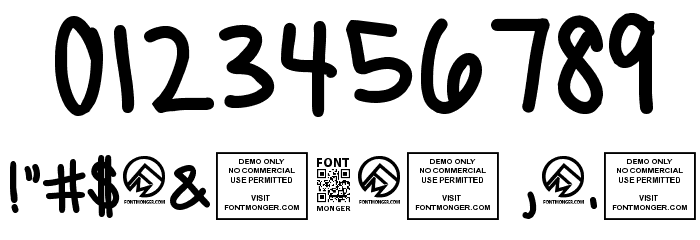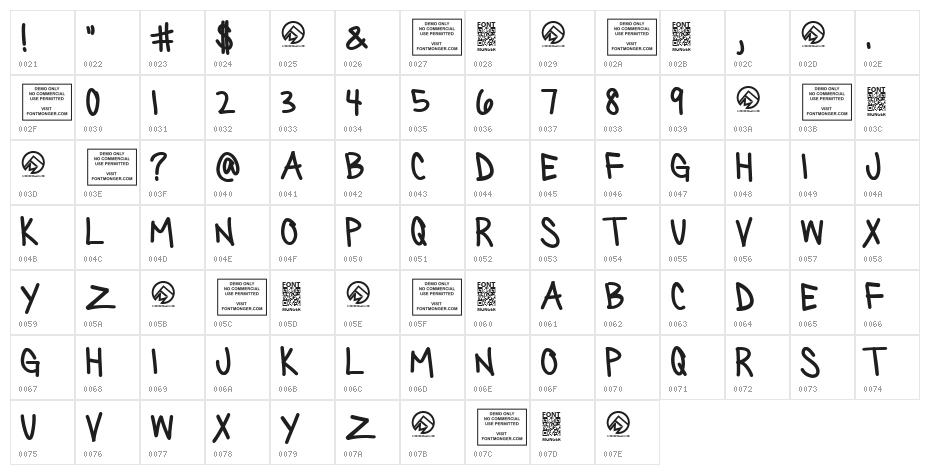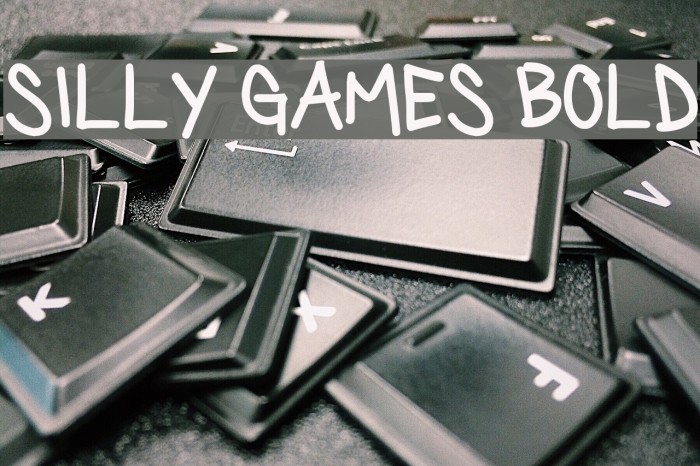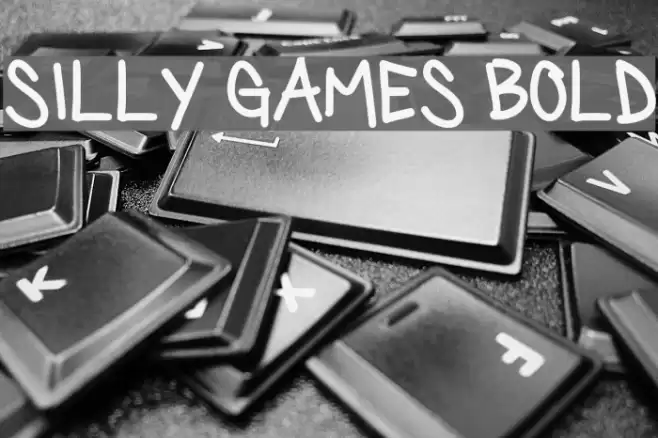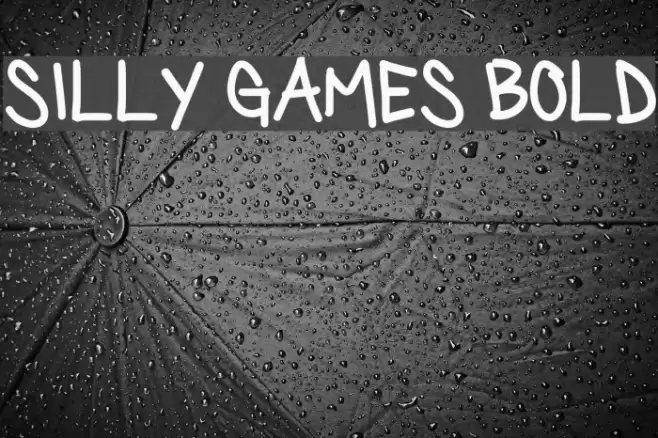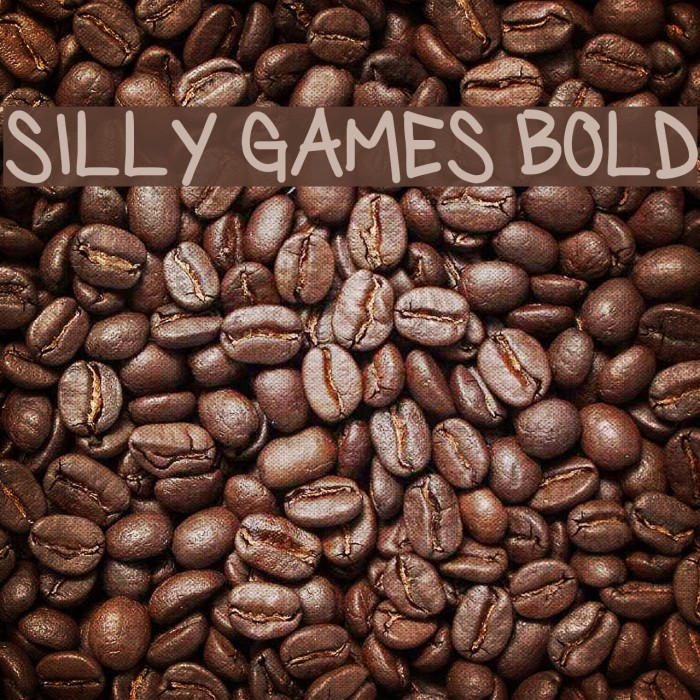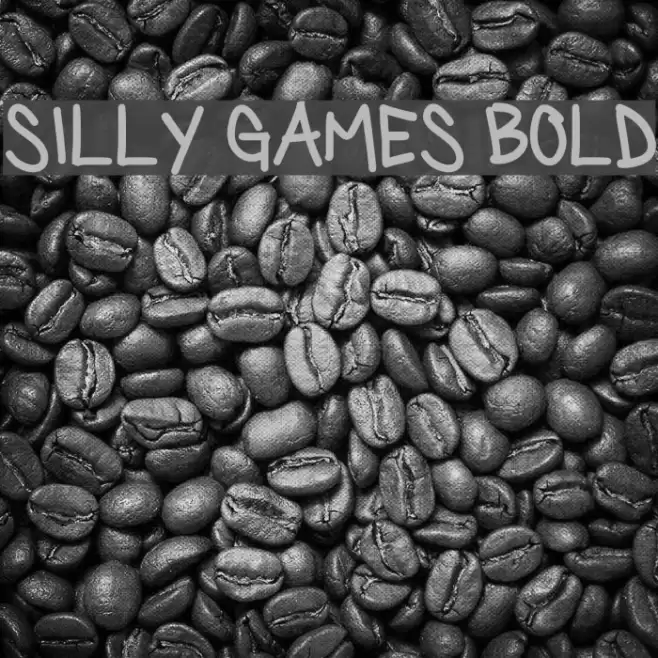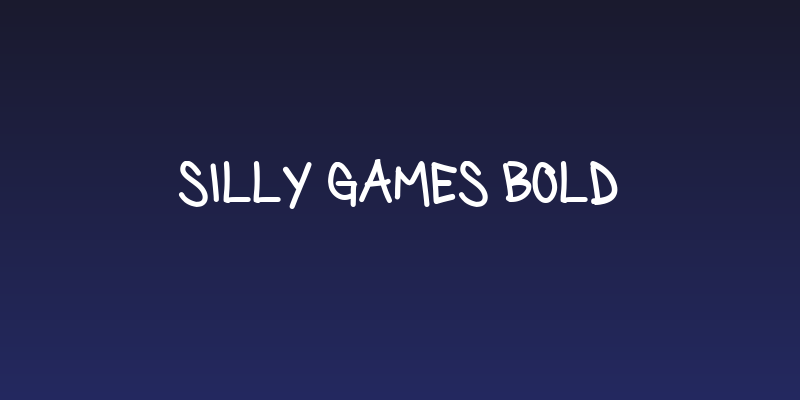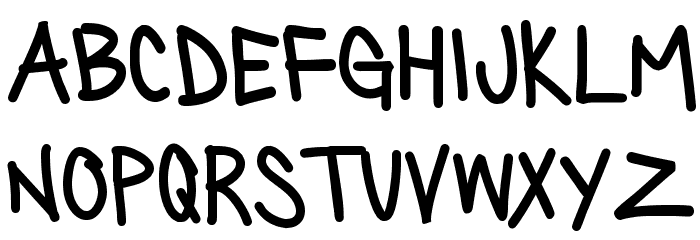
Silly Games Bold Font
Silly Games Bold Description
This playful and bold font features a handwritten style with a casual and informal appearance. The letters are rounded and slightly irregular, giving it a friendly and approachable feel. The uppercase and lowercase characters maintain a consistent style, with a slight slant that adds to the dynamic and lively nature of the font. The numerals and special characters are designed to match the overall aesthetic, ensuring a cohesive look across all text. This font is ideal for projects that require a fun and engaging tone.
| Overall Style | Playful, Casual |
| Proposed Projects | Perfect for children's books, playful branding, casual invitations, and social media graphics. |